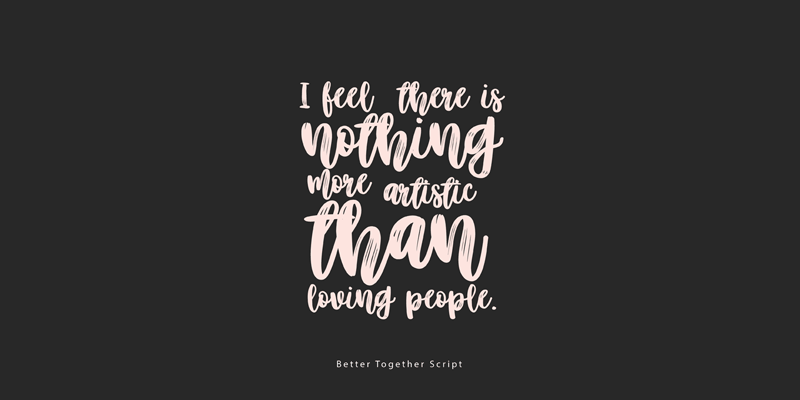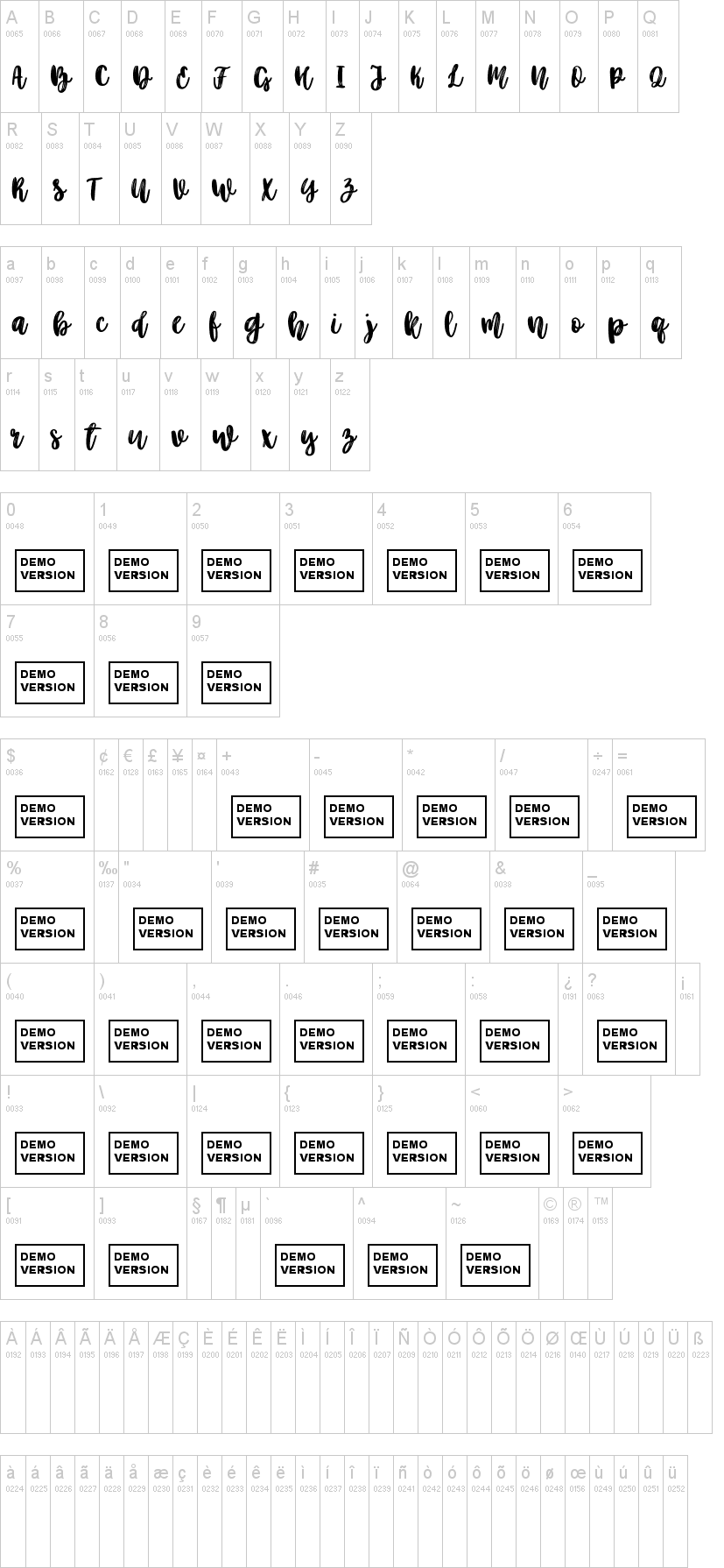
Better Together Script is one of 4 fonts of Better Together Family. It's a charismatic script, which includes some double-lettered ligatures and alternates for several letters to make your texts look more authentic.